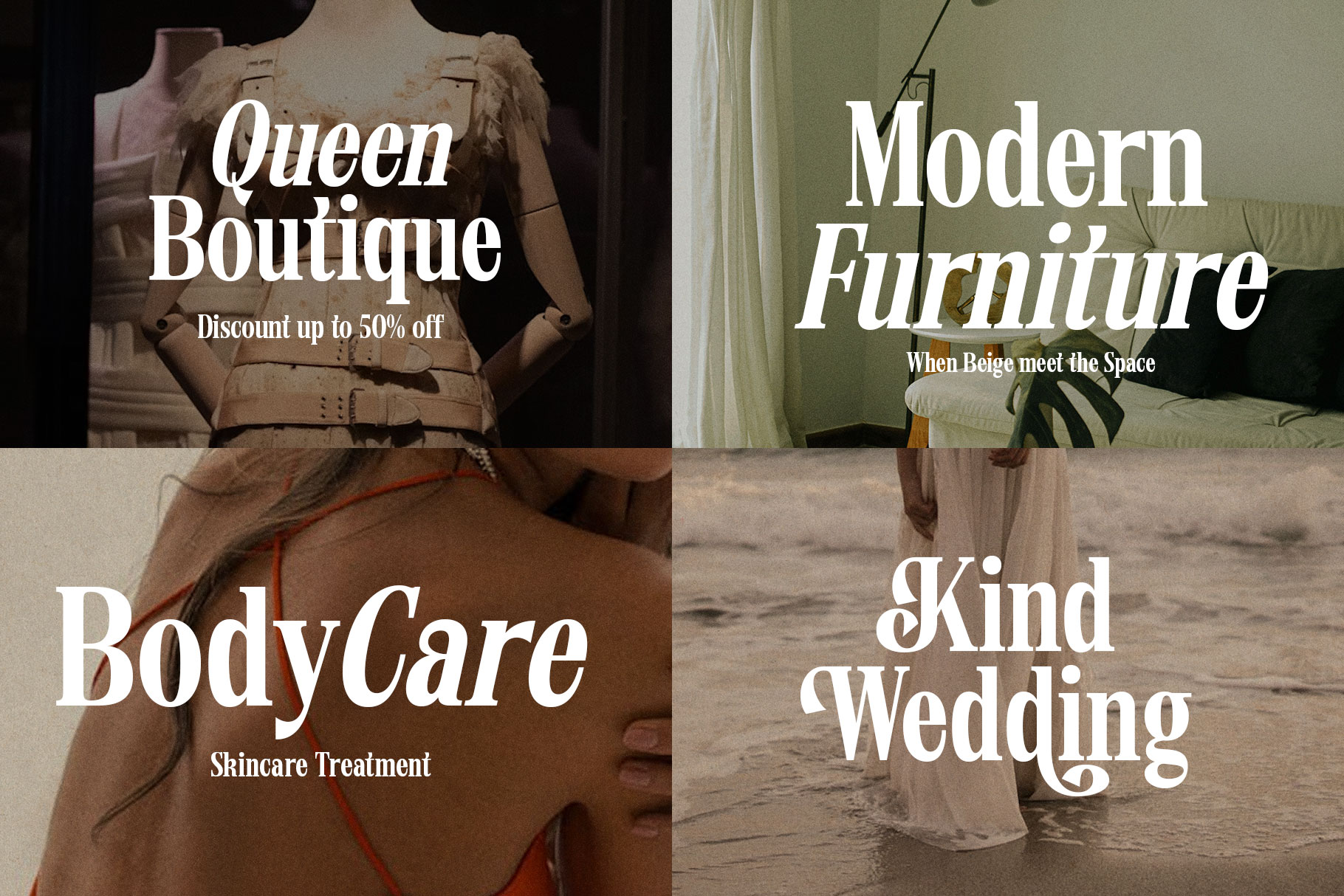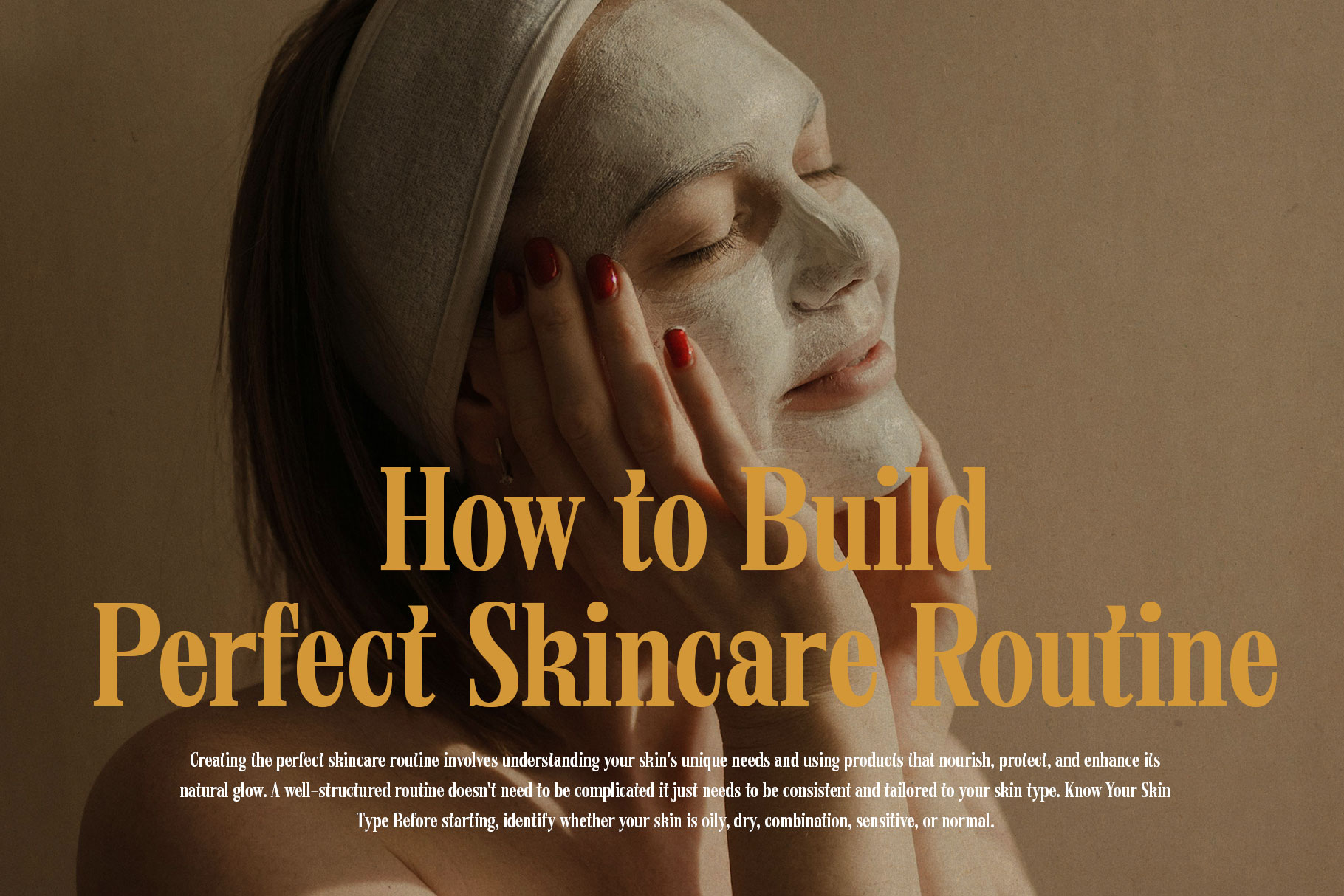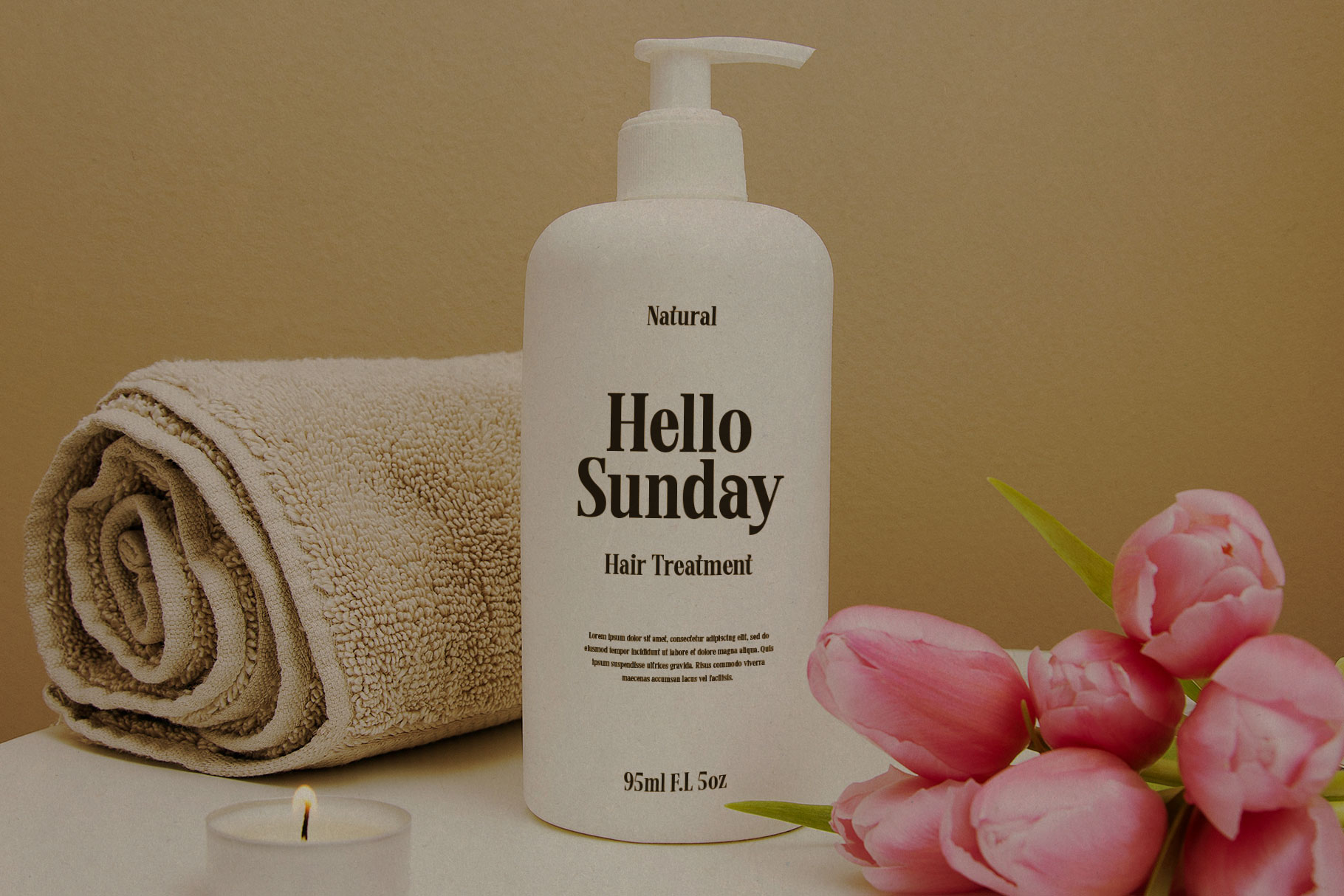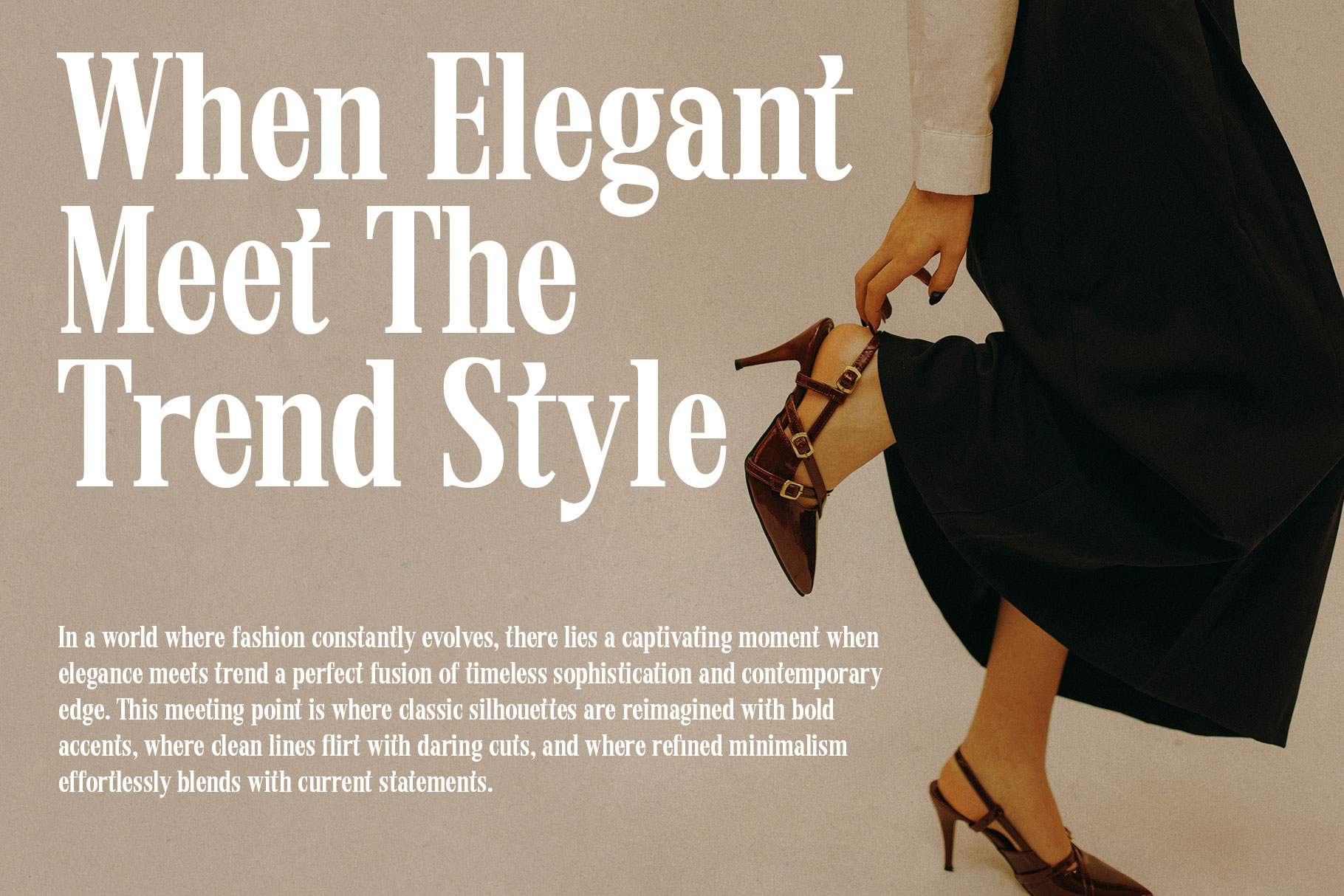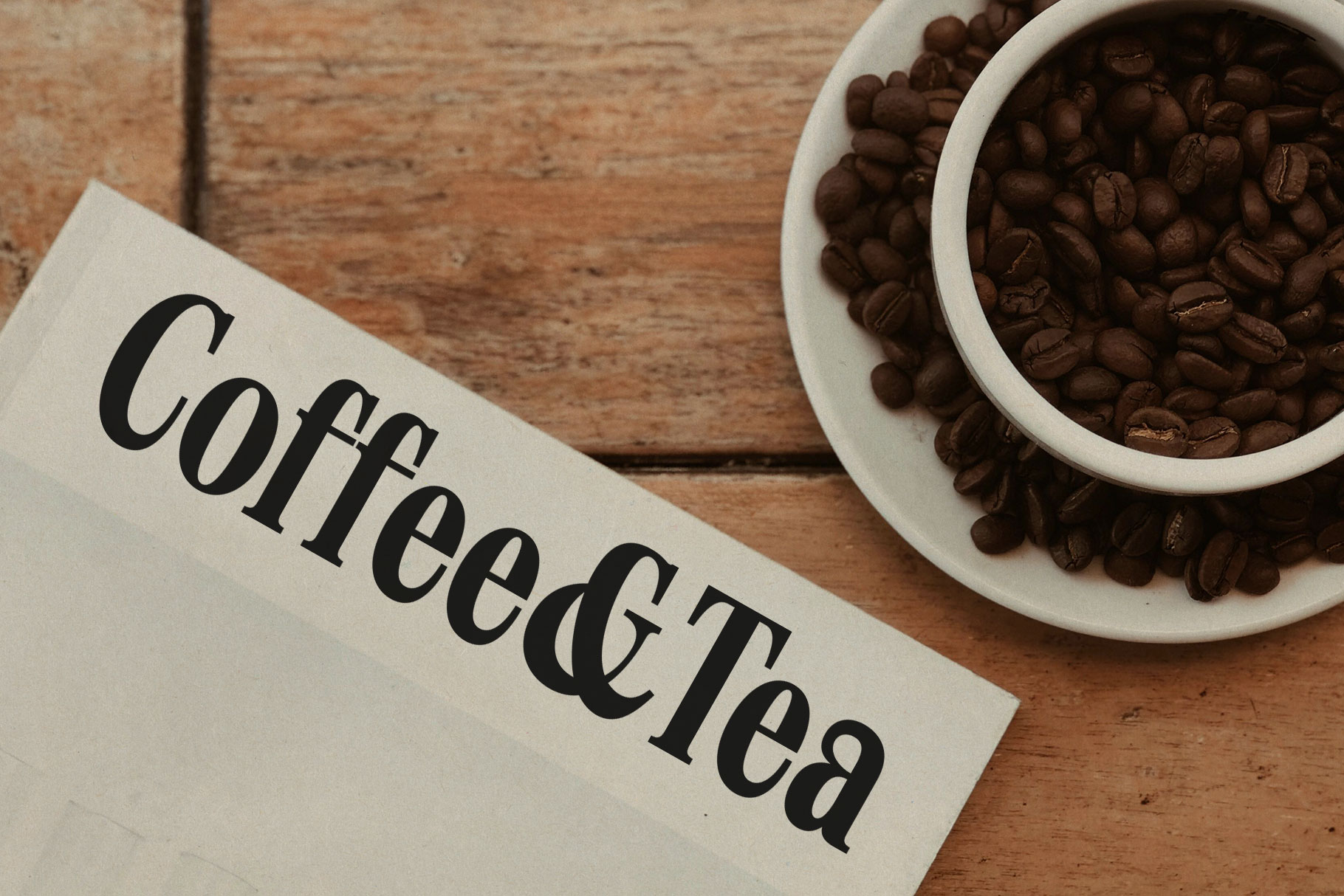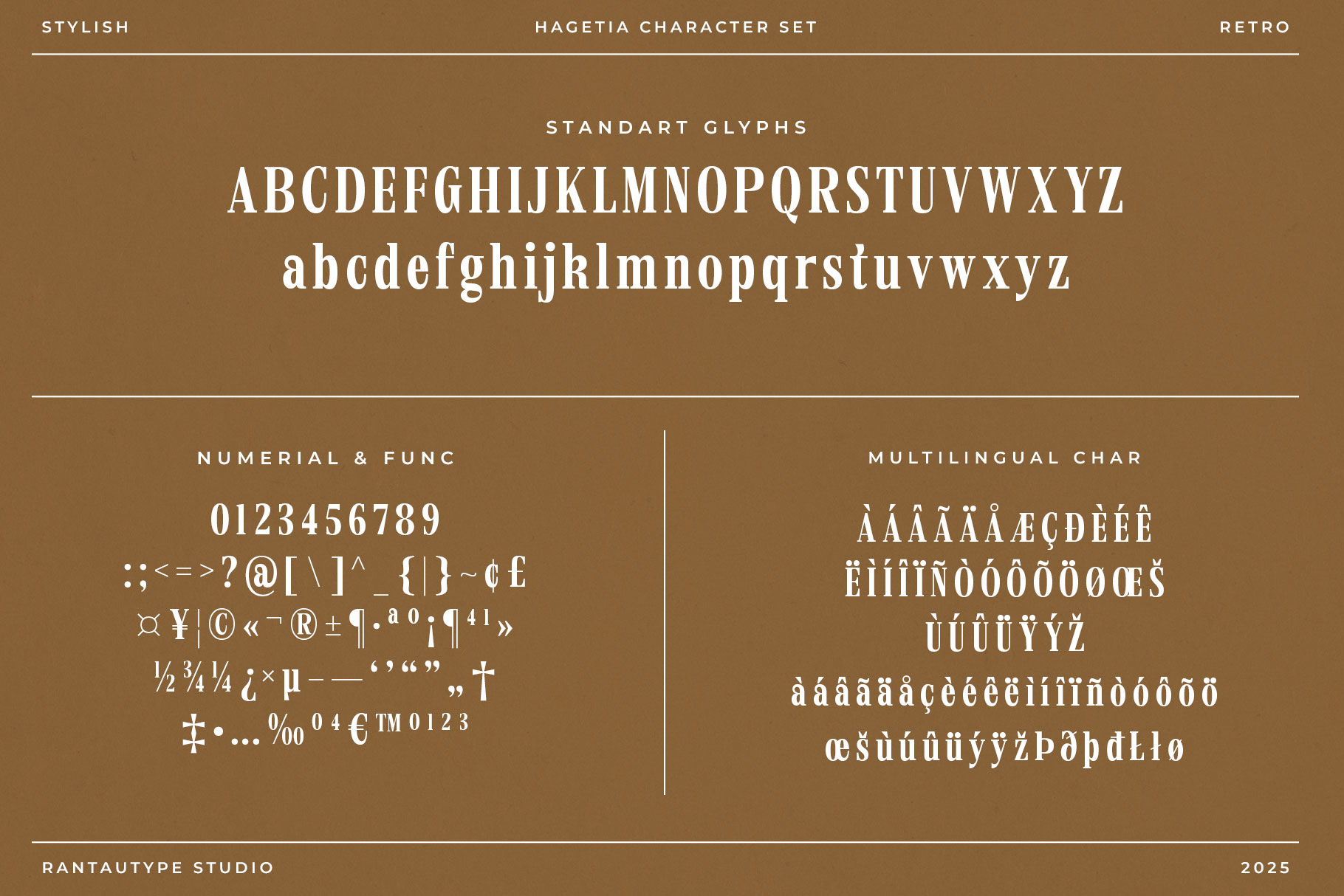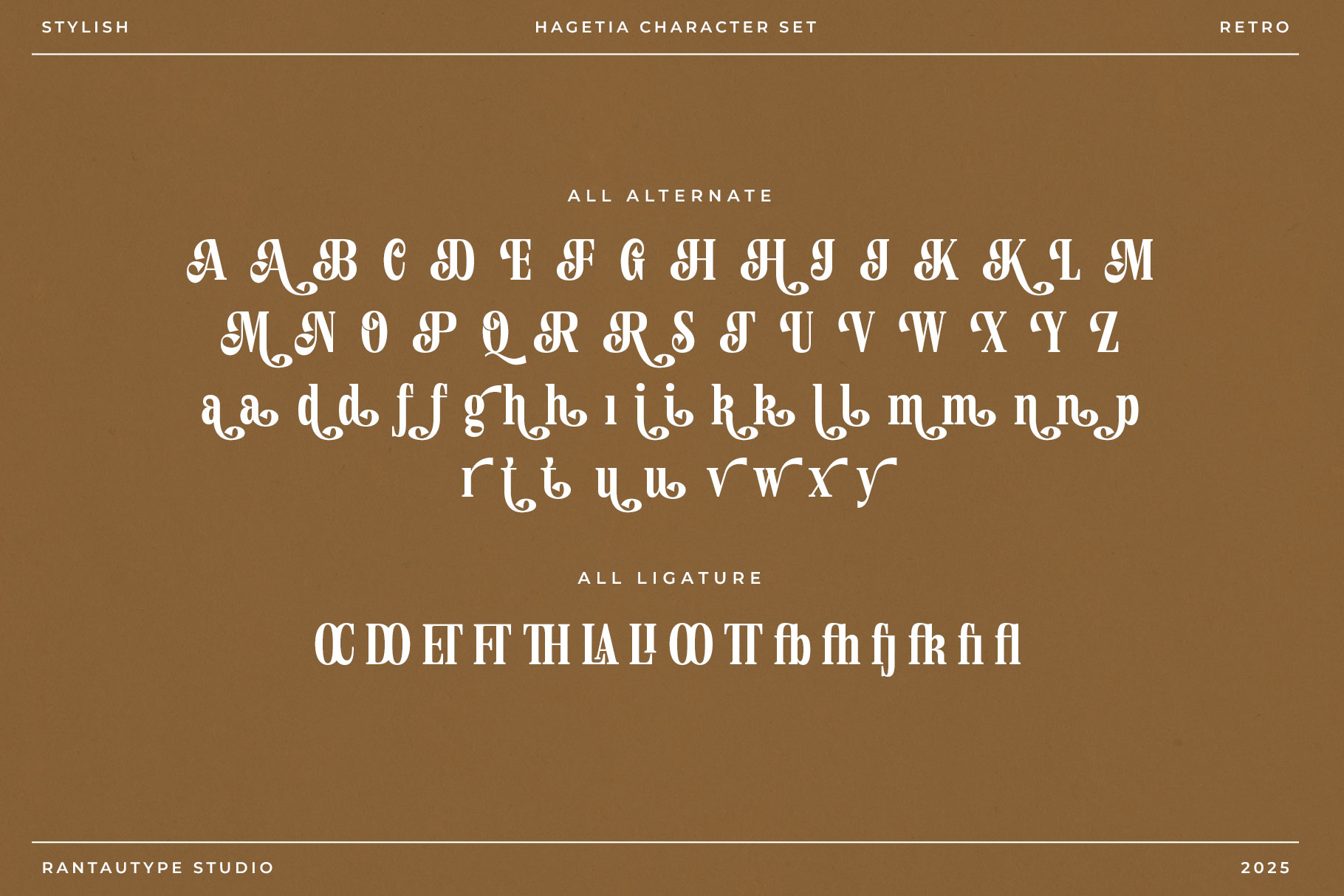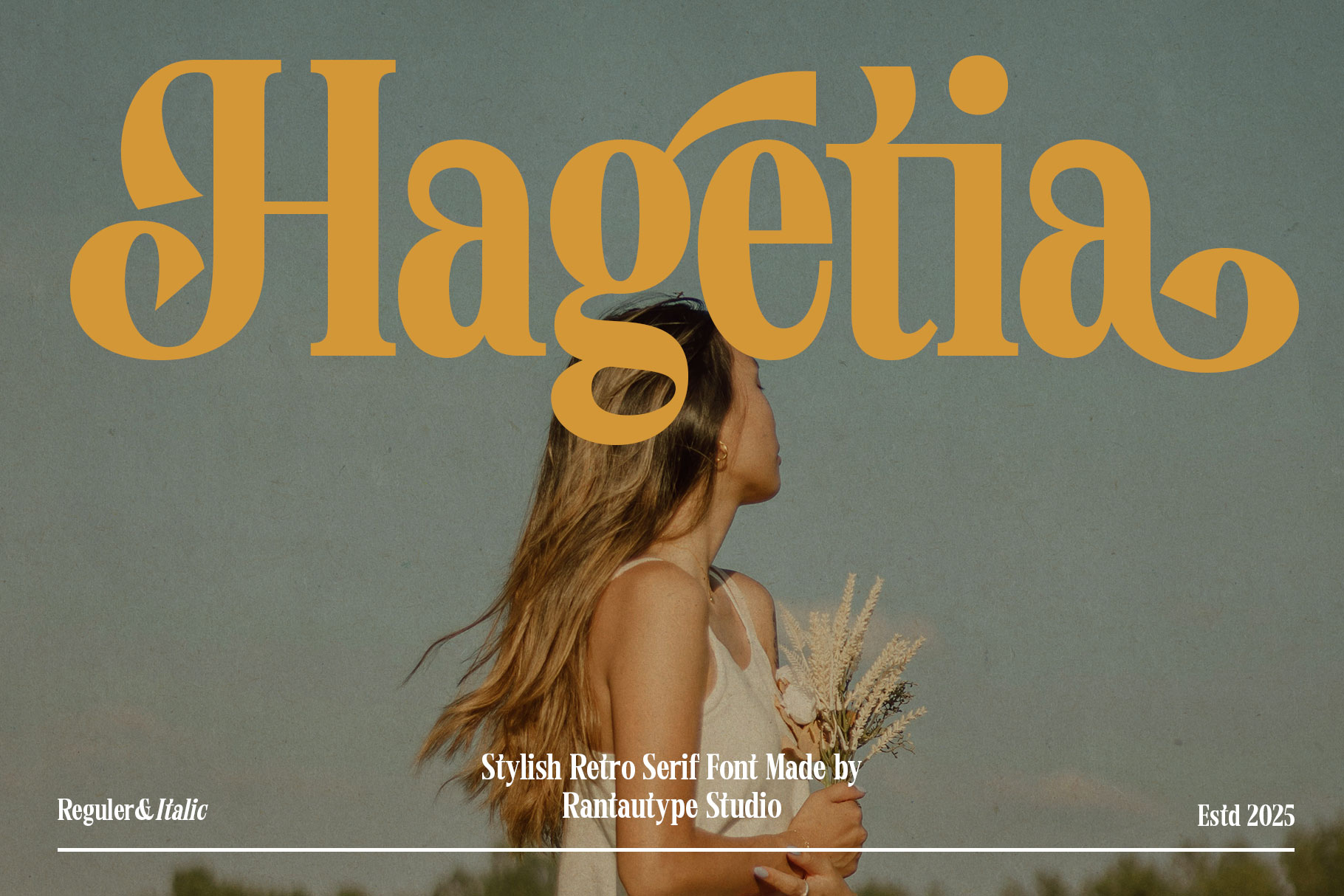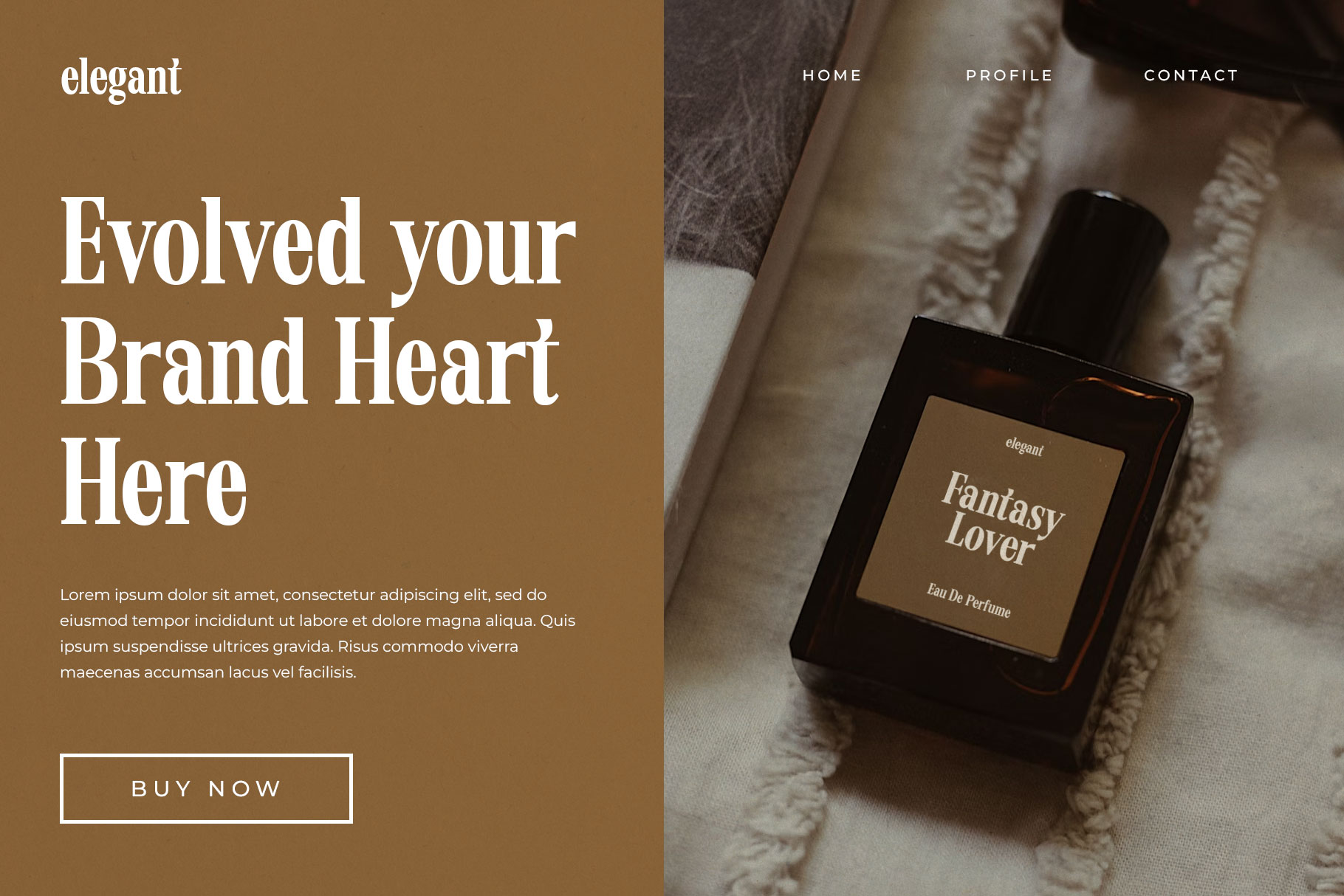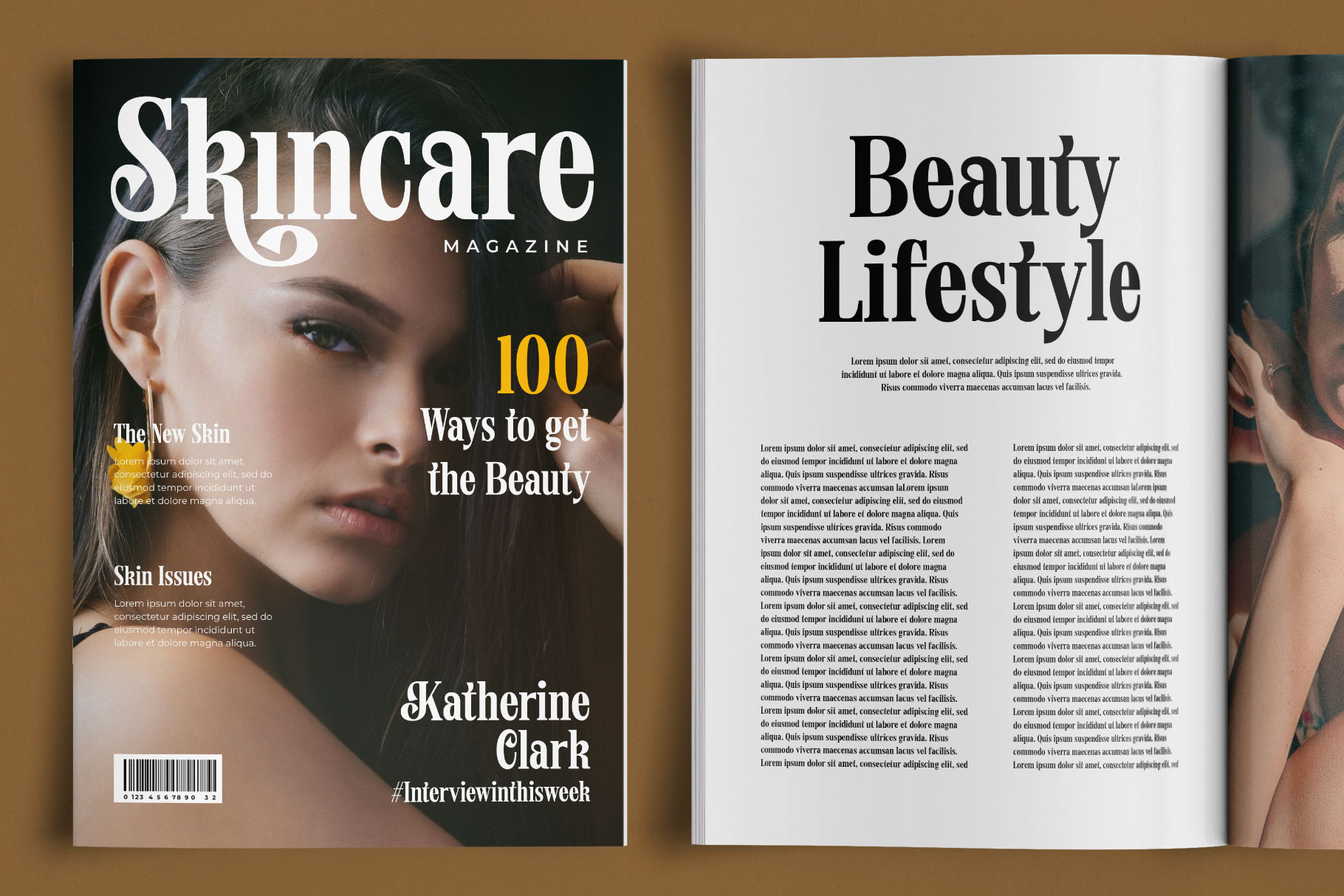
Hagetia Stylish Retro Serif Font
Hagetia is stylish serif inspire combination modern and nostalgic charm. Hagetia come with more feature with alternate, ligature and already support multilingual character.
Hagetia is a perfectly choice for any creative endeavor, chic, lifestyle design such as logotype, advertisements, watermark on photography, stationery, branding project, display and magazine, invitation, corporate brand, product design, label, business project and many other project with retro touch.